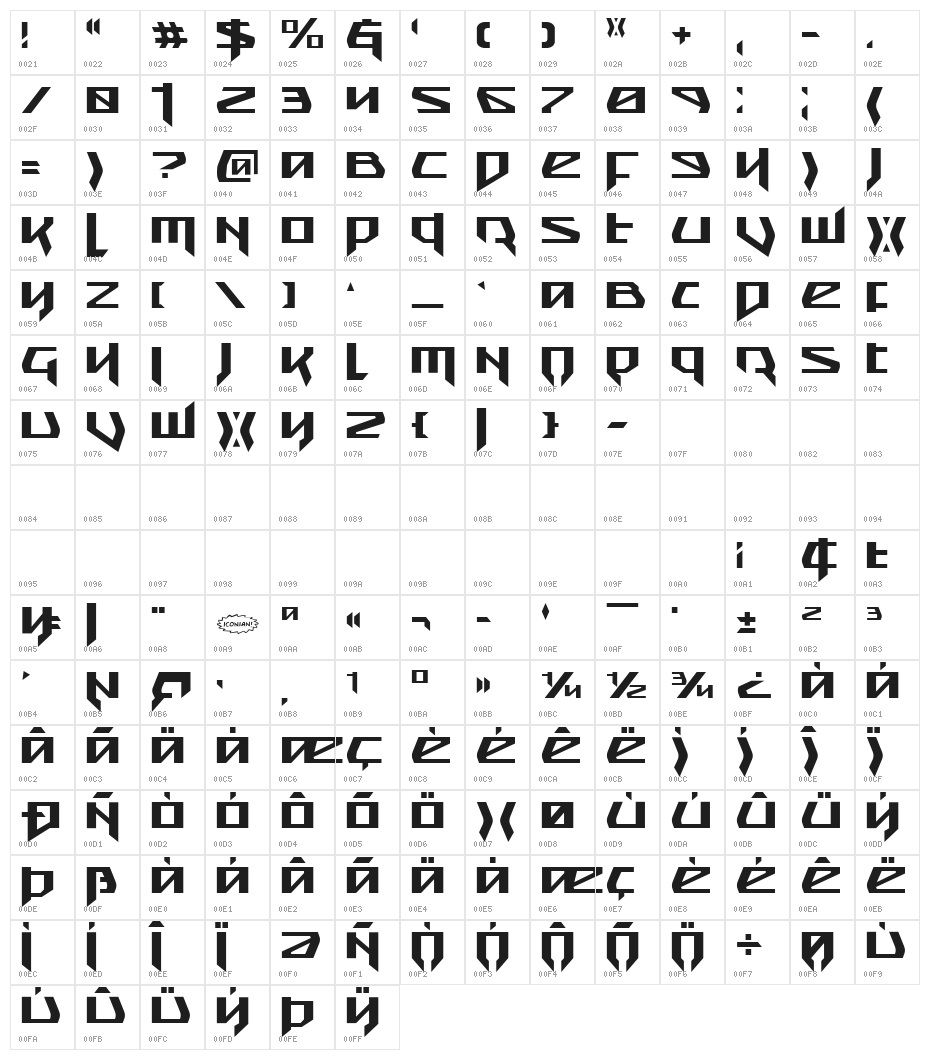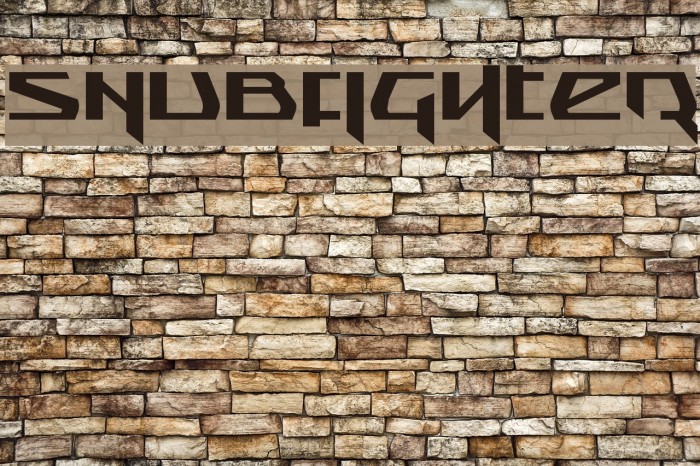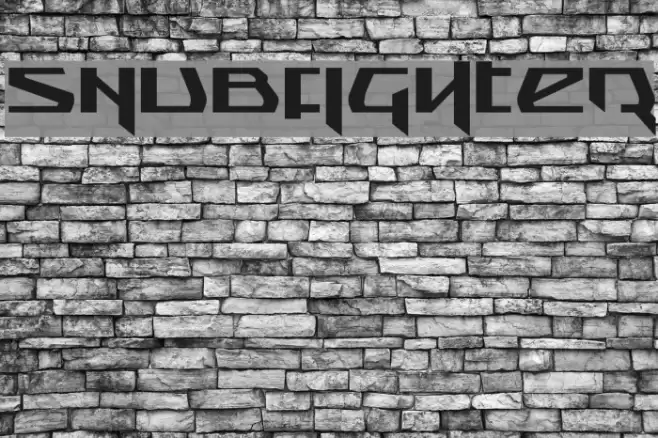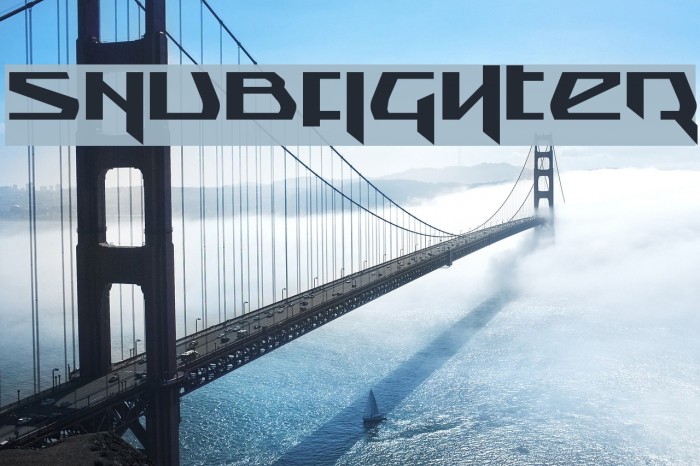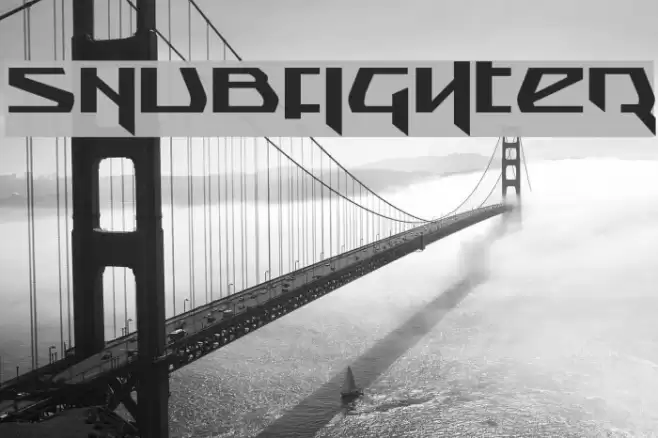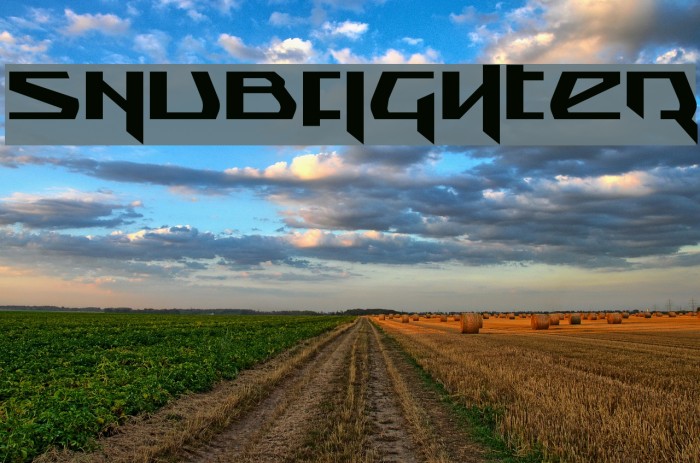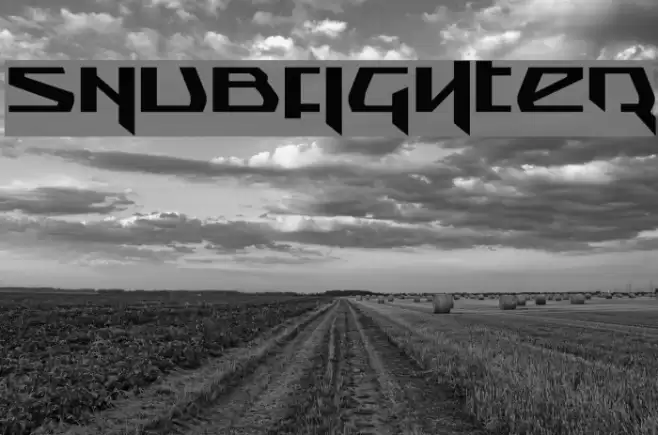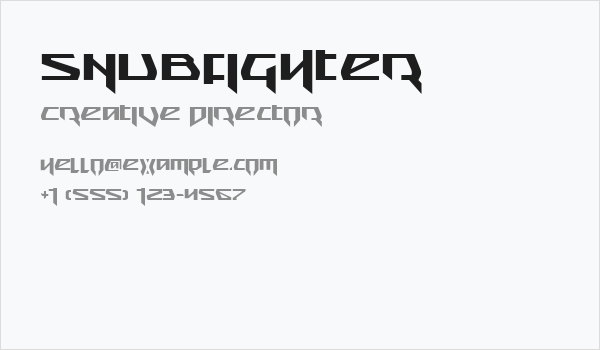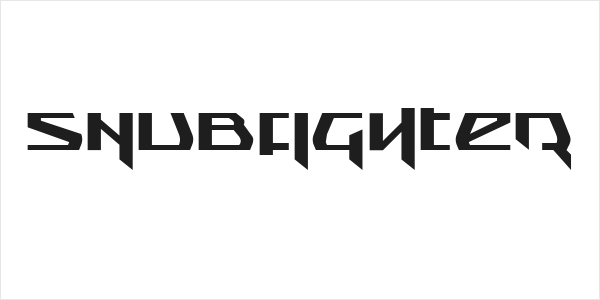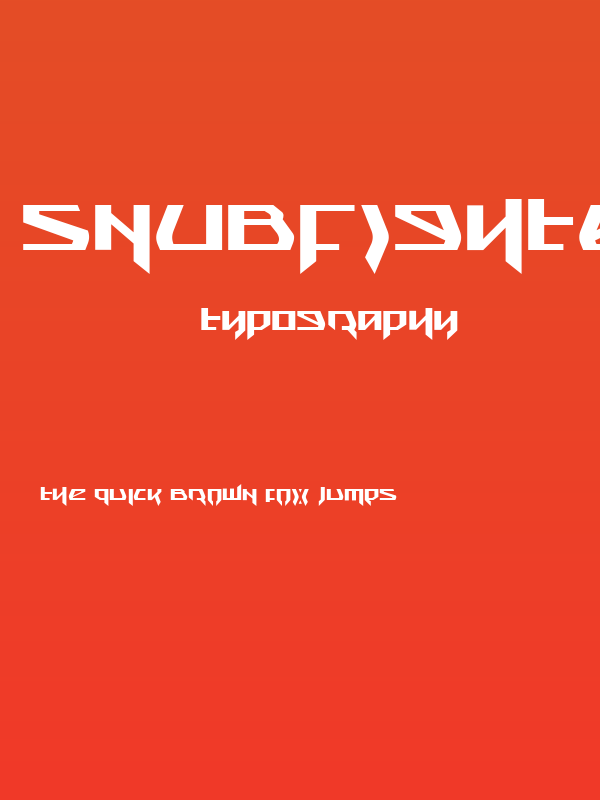
Snubfighter Font
Snubfighter Description
This font features a bold and futuristic design with sharp, angular lines and geometric shapes. Each character is crafted with a unique, edgy style that conveys a sense of modernity and innovation. The uppercase and lowercase letters maintain a consistent aesthetic, with strong diagonal cuts and pointed edges that create a dynamic visual impact. The numerals and special characters follow the same design principles, ensuring uniformity across all glyphs. This font's distinct appearance makes it ideal for projects that require a standout, contemporary look.
| Proposed Projects | Ideal for sci-fi themed designs, video game graphics, tech branding, and futuristic posters. |